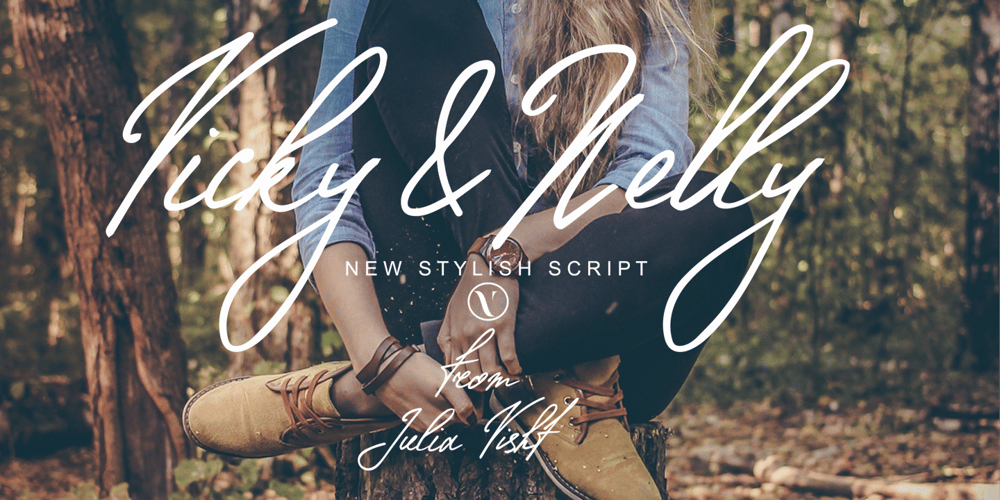
Vicky Nelly Font Family was designed by Julia Kruk and published by Julia Visht. Vicky Nelly contains 1 styles and family package options. Vicky&Nelly – new elegant modern script from Julia Visht. Classy modern multifunctional script! A little bit chic, a little bit classy, Vicky&Nelly is a must-have for your collection of handwritten fonts. Stylish script for stylish projects!Main features:-Ligatures. Set of 29 opentype ligatures allows to make your design truly unique.-Alternates. Set of lowercase alternates ( OpenType Style Set) allows you to create even more authentic custom-feel text.-Multyfunctionality. It’s perfect for: elegant branding, wedding stationery, book cover designs, classy packaging, album covers, handwritten quotes, greeting cards,typographic designs, wall art, websites, photos, and so much more.-Multylangual support. English, German, Italian, French, Danish, Norwegian, Swedish, Italian, Spanish, Filipino, Scottish Gaelic, Indonesian, Irish, Swiss German, Portuguese.Happy creating!